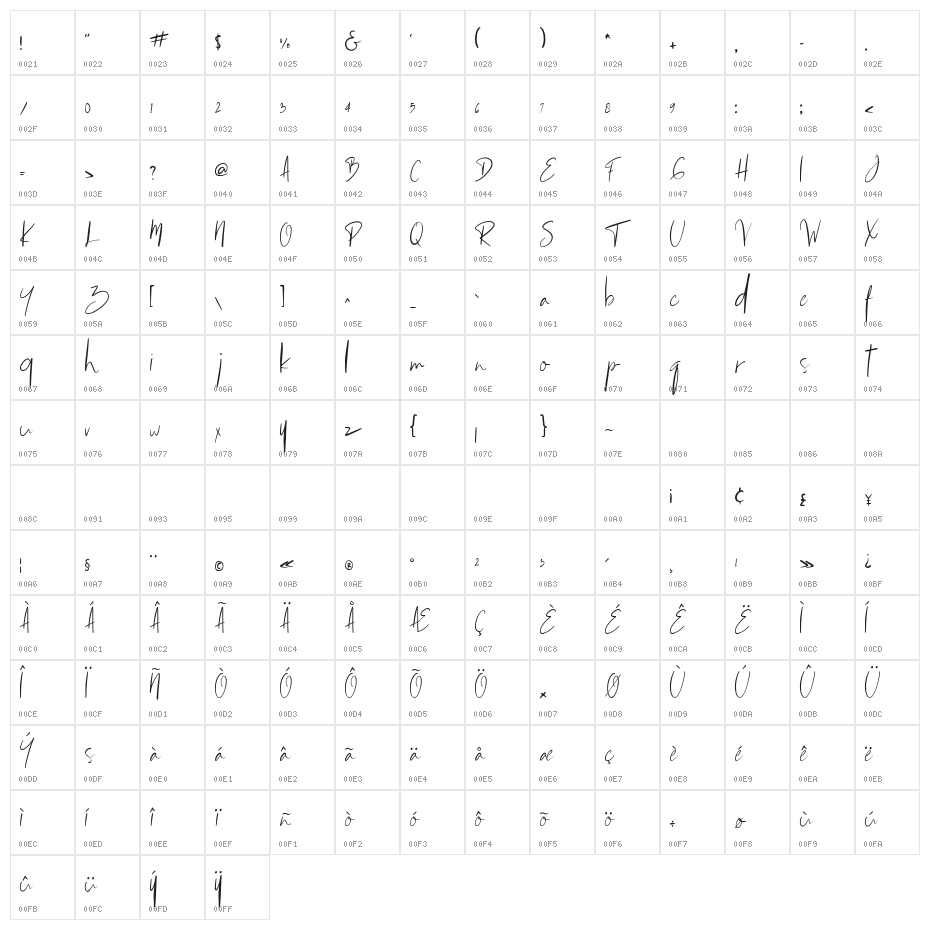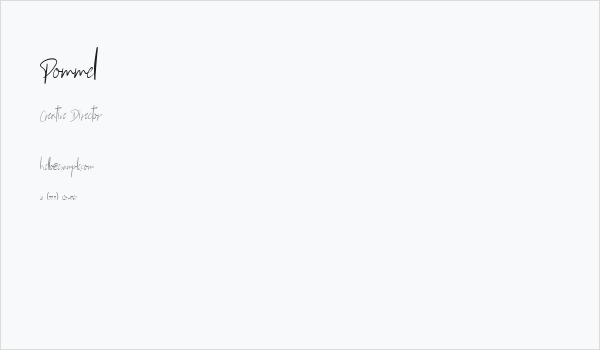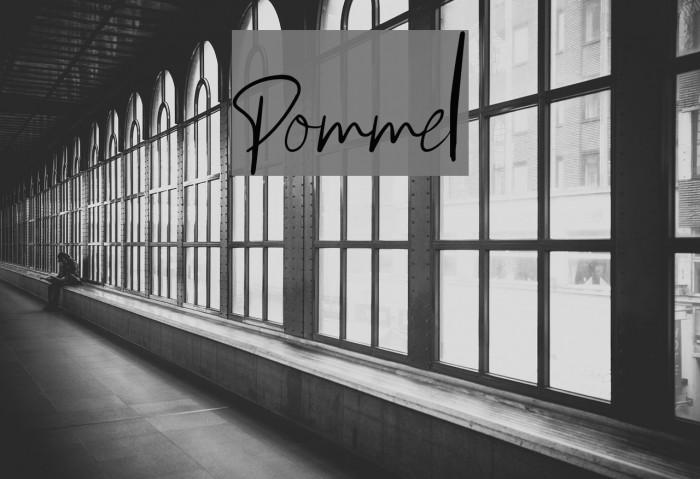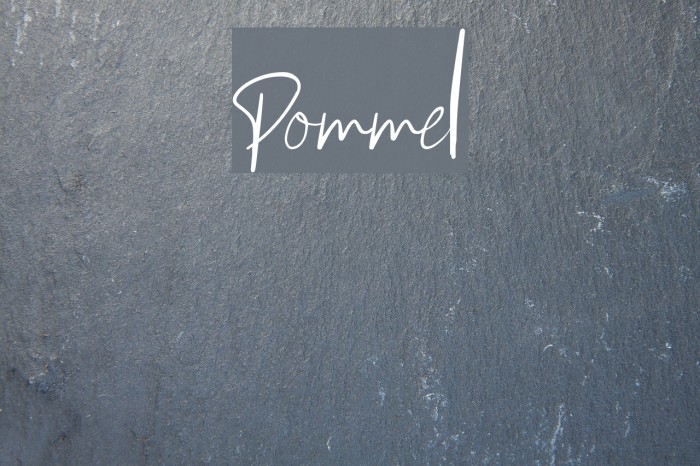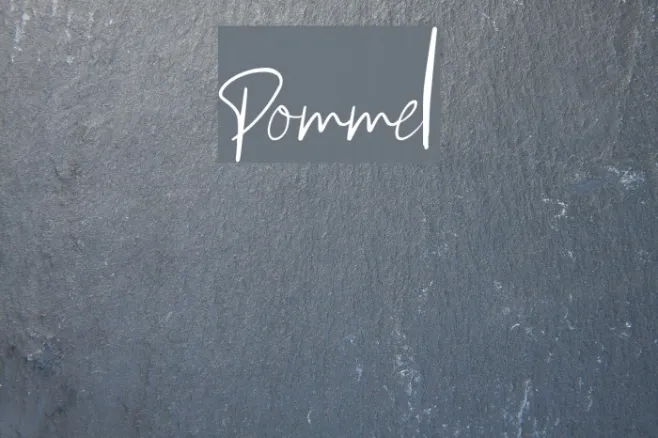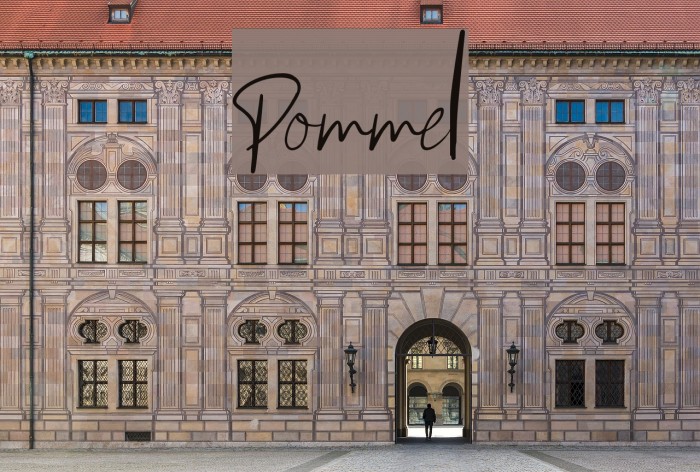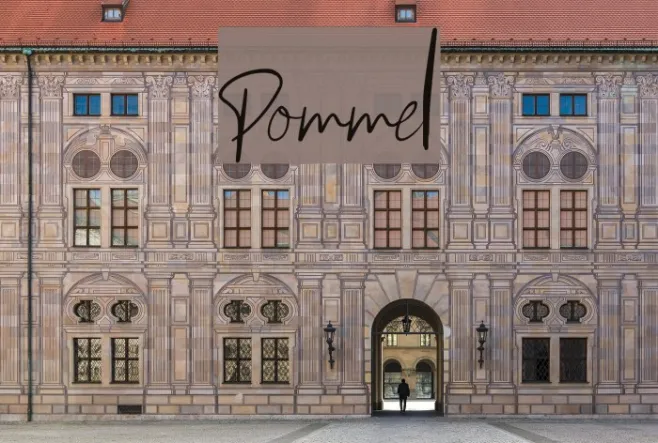
Pommel Font
Pommel Description
This font exudes a playful and energetic vibe with its handwritten style. The letters are characterized by their tall, narrow forms and dynamic strokes, giving them a lively and informal appearance. The uppercase letters are particularly elongated, while the lowercase letters maintain a consistent height, creating a harmonious balance. The numbers and special characters follow the same whimsical style, making the font versatile for various creative projects. The overall design is both modern and approachable, perfect for adding a personal touch to any text.
| Width | Condensed |
| Use Case | Logos, Headlines, Creative projects |
| Proposed Projects | Ideal for greeting cards, invitations, personal branding, and creative posters. |